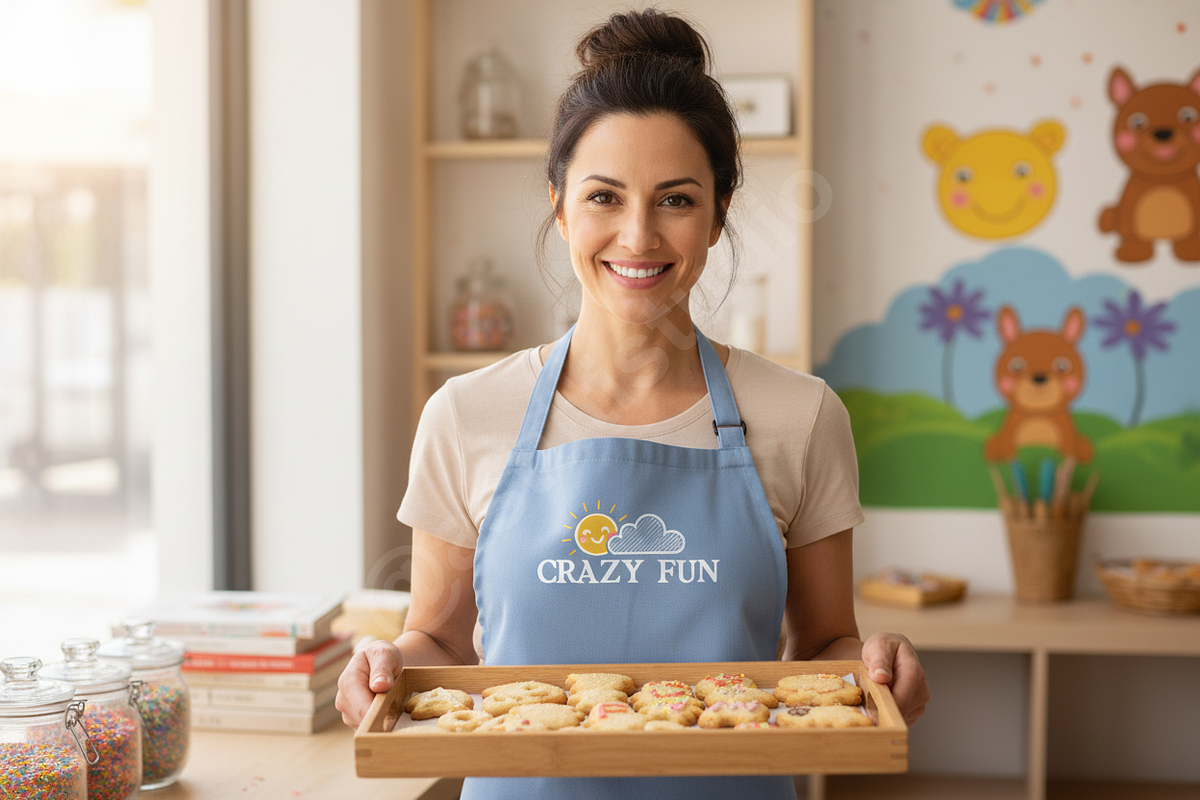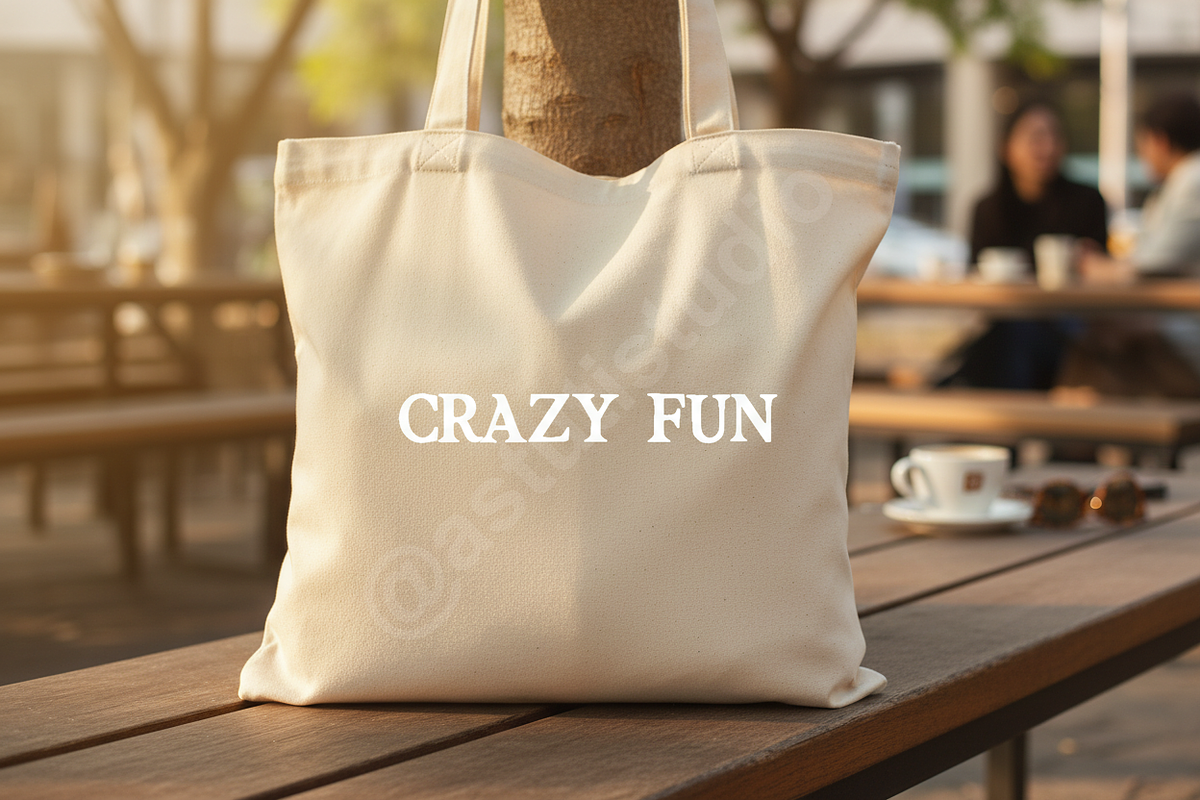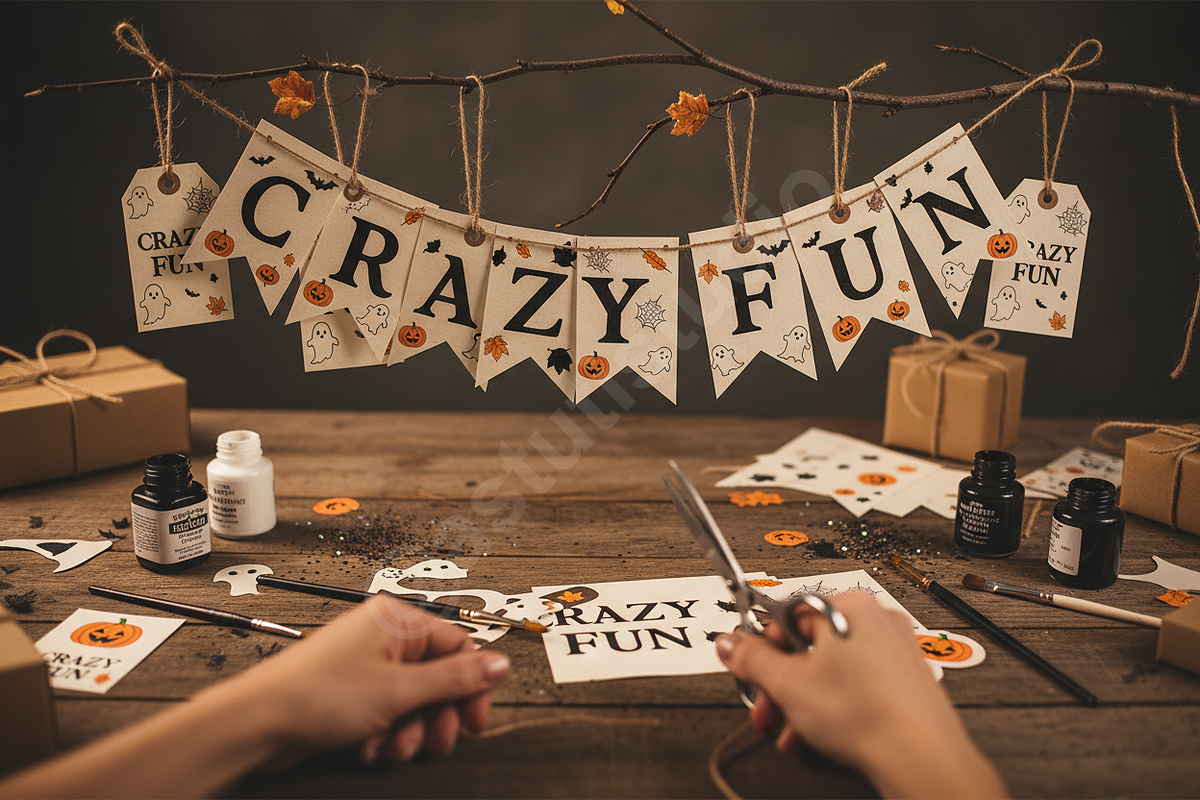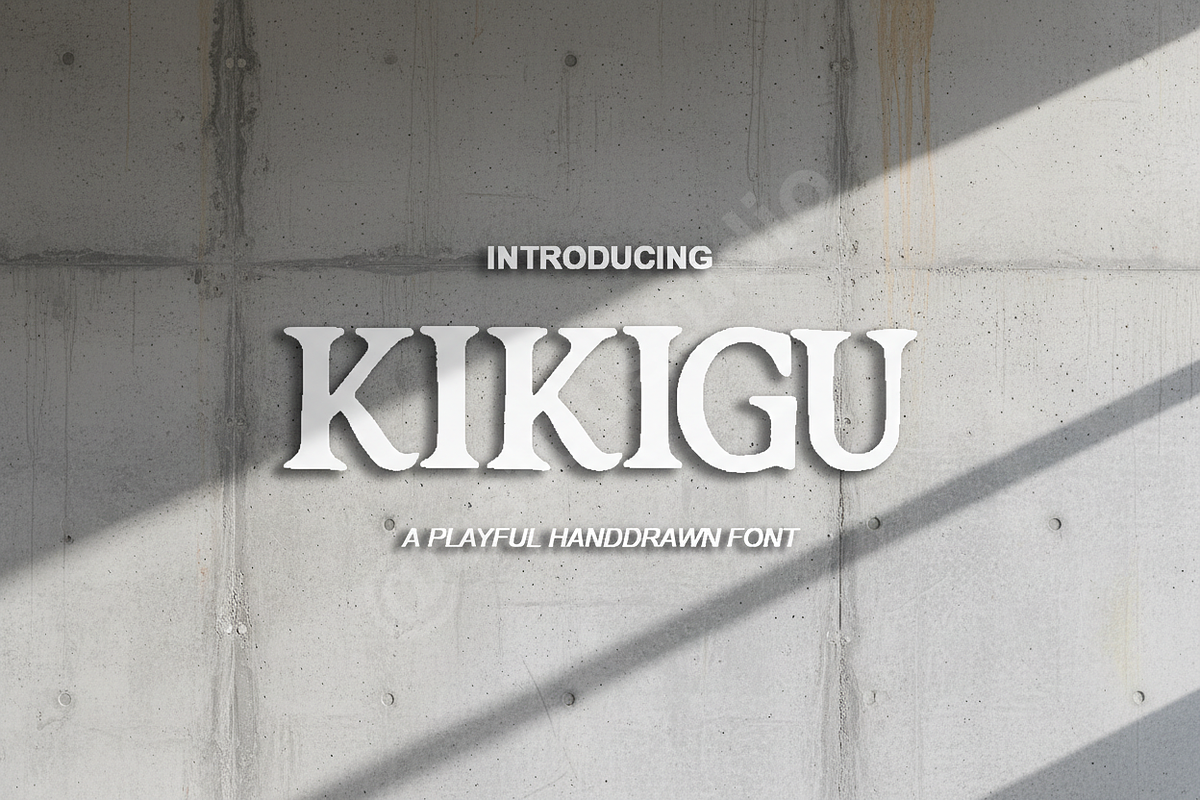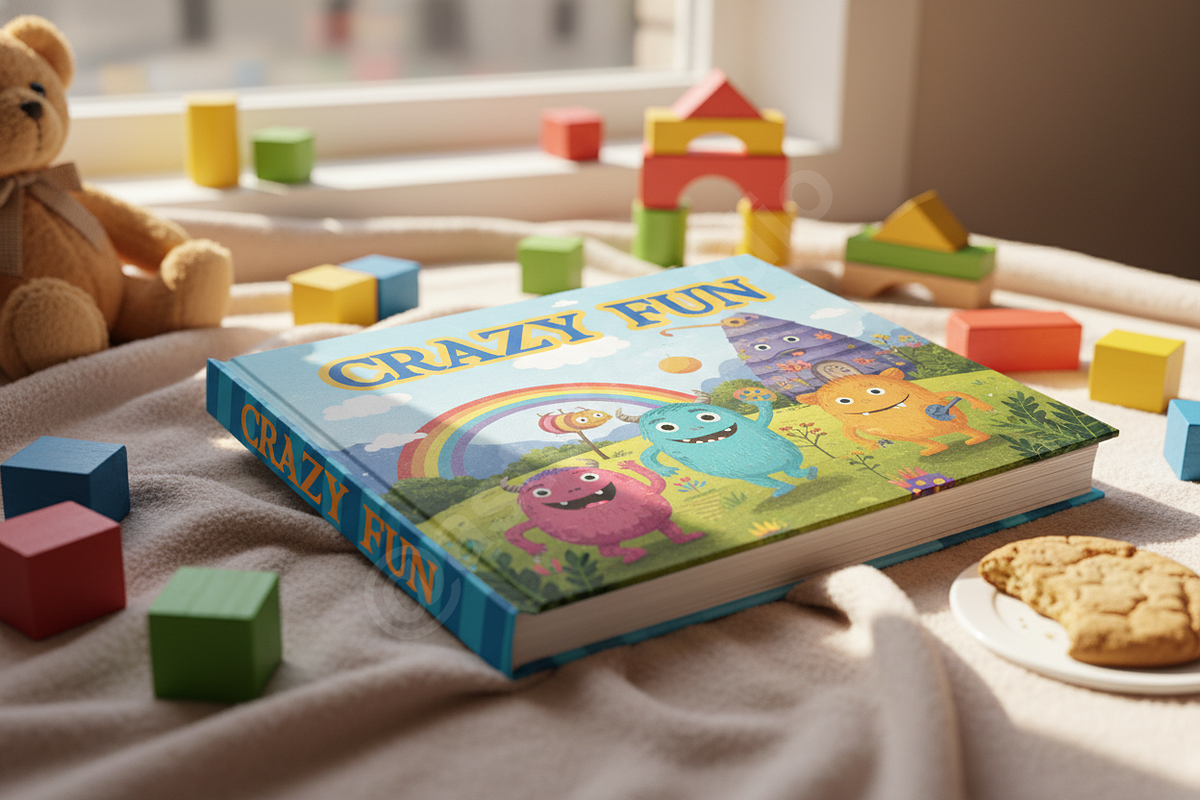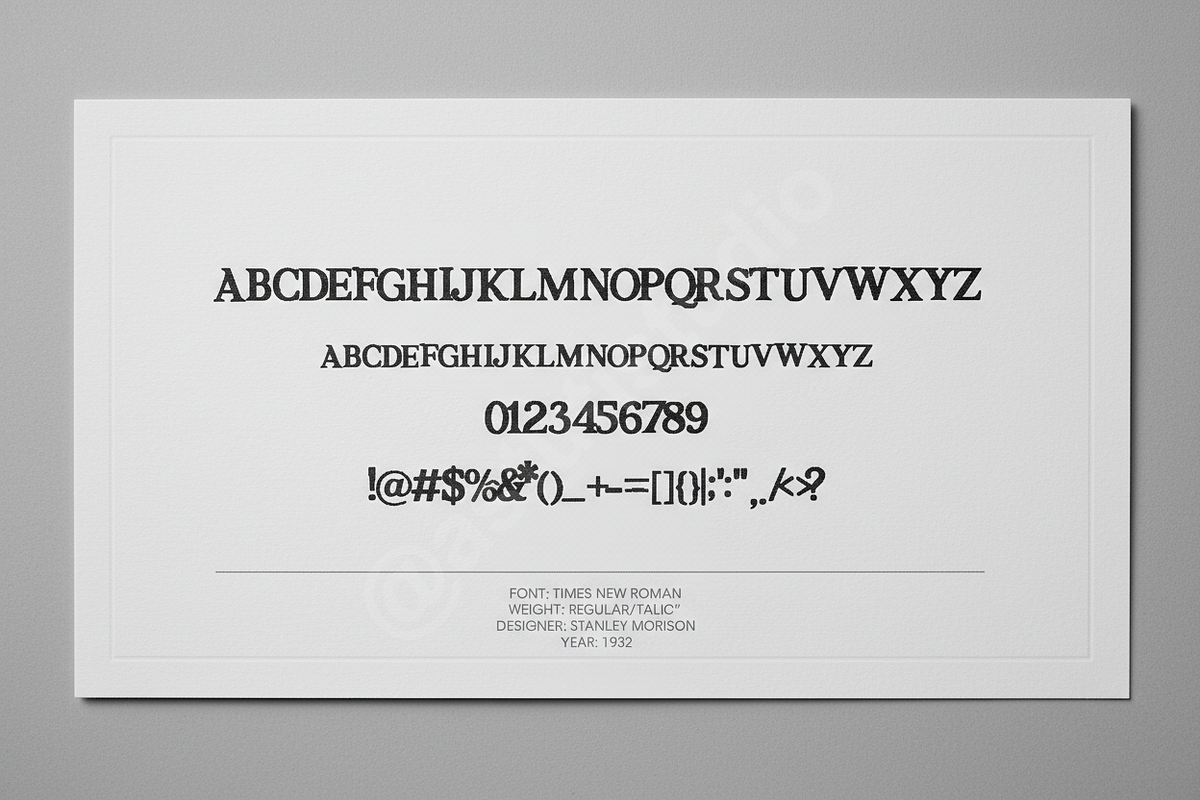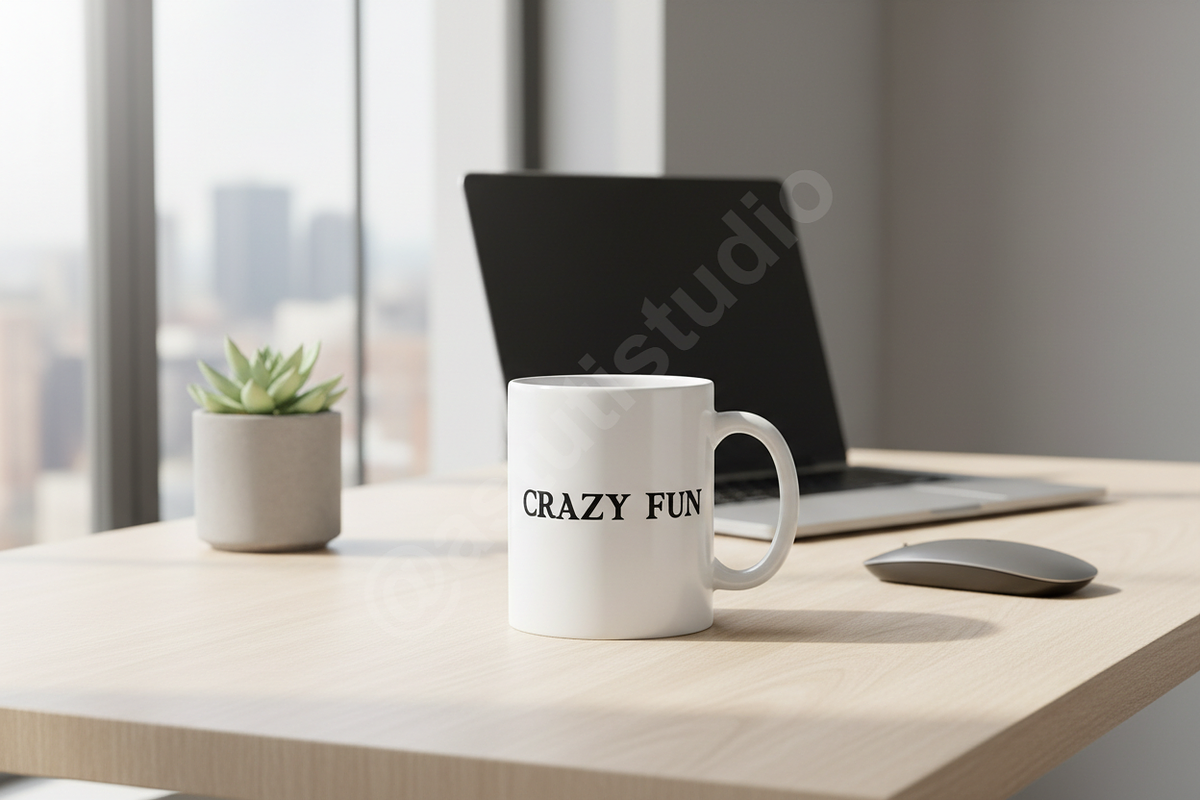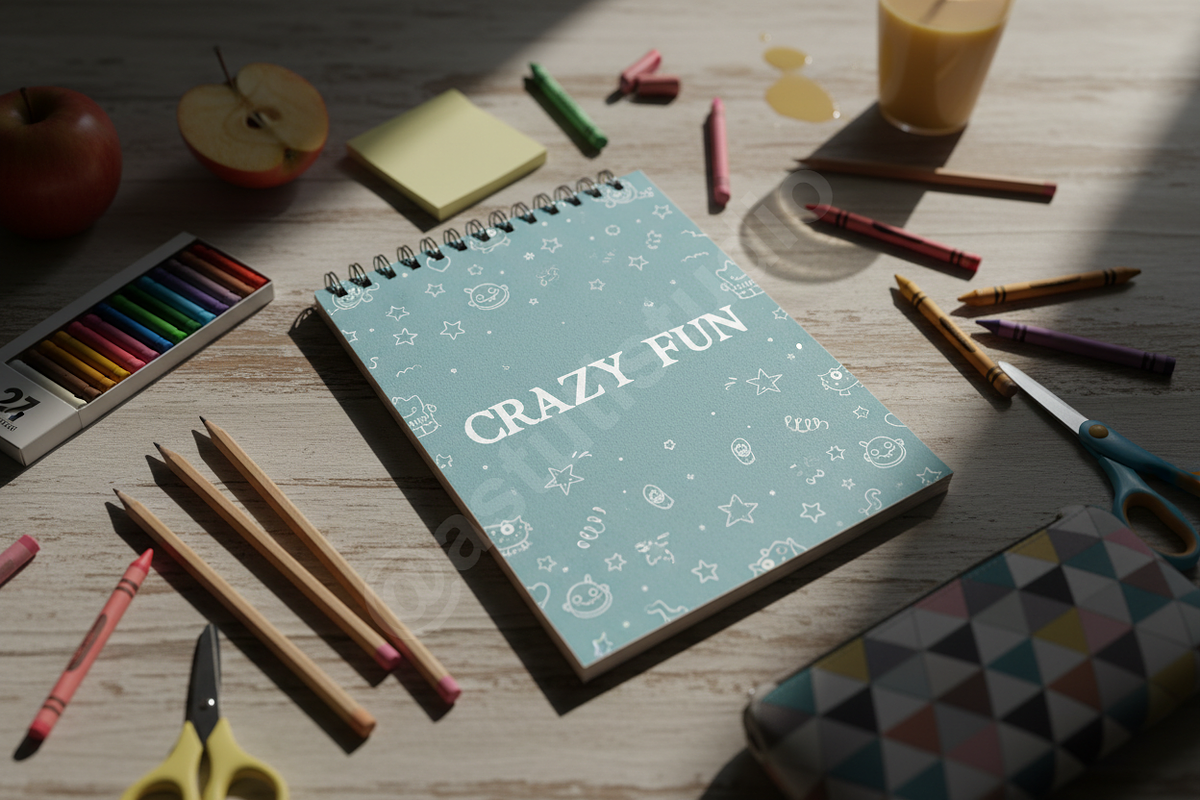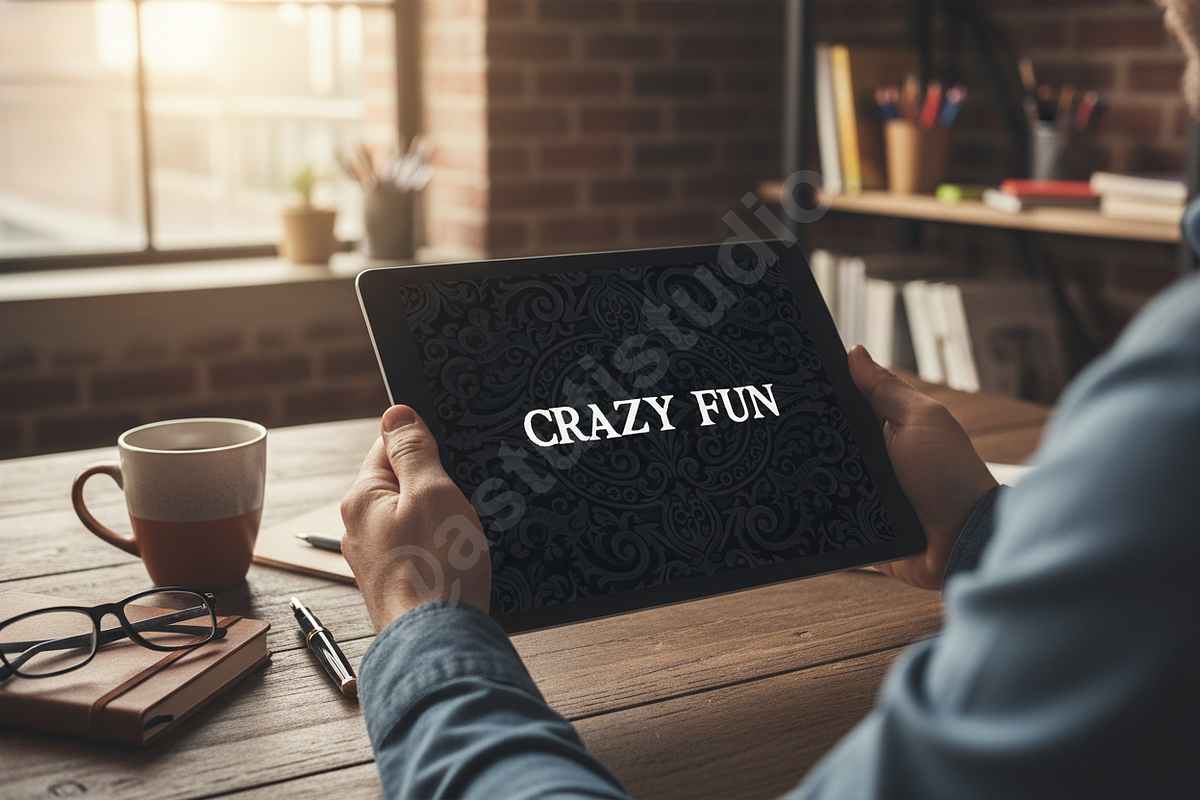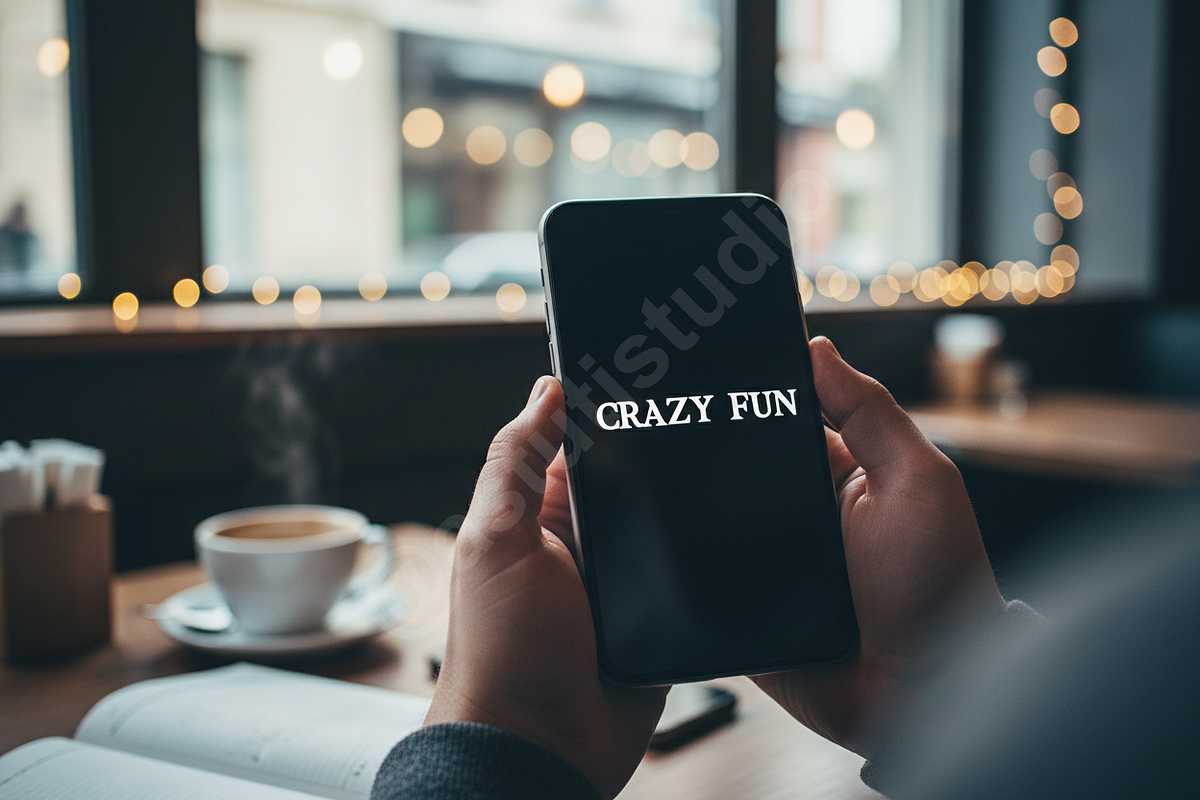
Kikigu - A Modern Luxury Serif Typef
Introduction Introducing Kikigu, a sophisticated serif typeface designed for the discerning creator. With its refined curves and striking contrast, Kikigu embodies the essence of high-end studio aesthetics. It is a premium choice for designers seeking to elevate their visual identity through timeless elegance and modern flair.
Perfect For Kikigu is specifically crafted for luxury branding, editorial layouts, high-fashion magazines, and elevated social media storytelling. Whether you are designing a boutique logo or a sophisticated web interface, this font provides the professional touch required for premium projects.
- Unique high-contrast letterforms
- Clean and elegant ligatures
- Extensive multilingual support
- Optimized for both print and digital displays
- Minimalist and balanced spacing